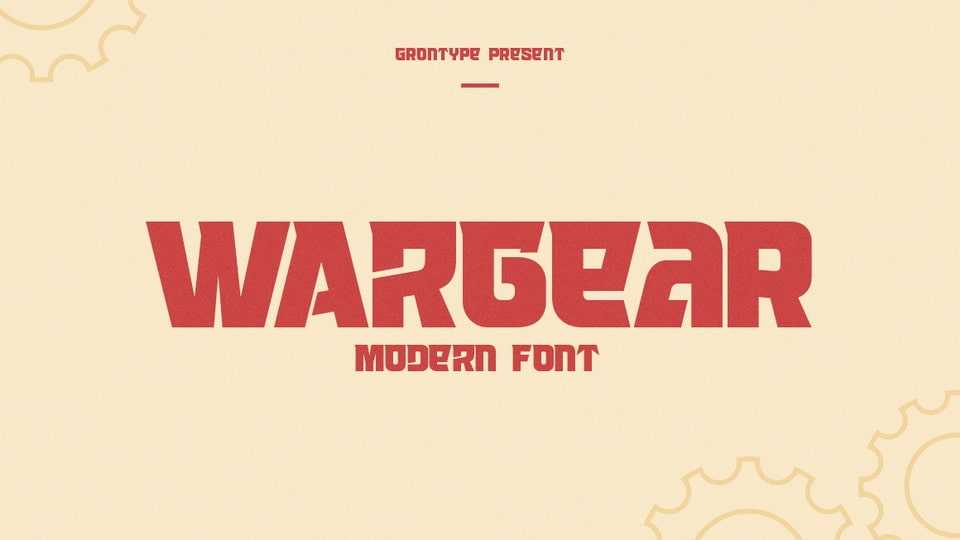
Download Wargear font, a black display type. Simple in a good way and tough look. This font designed with tight kerning making this font a perfect choice if you want a bold way in your design.